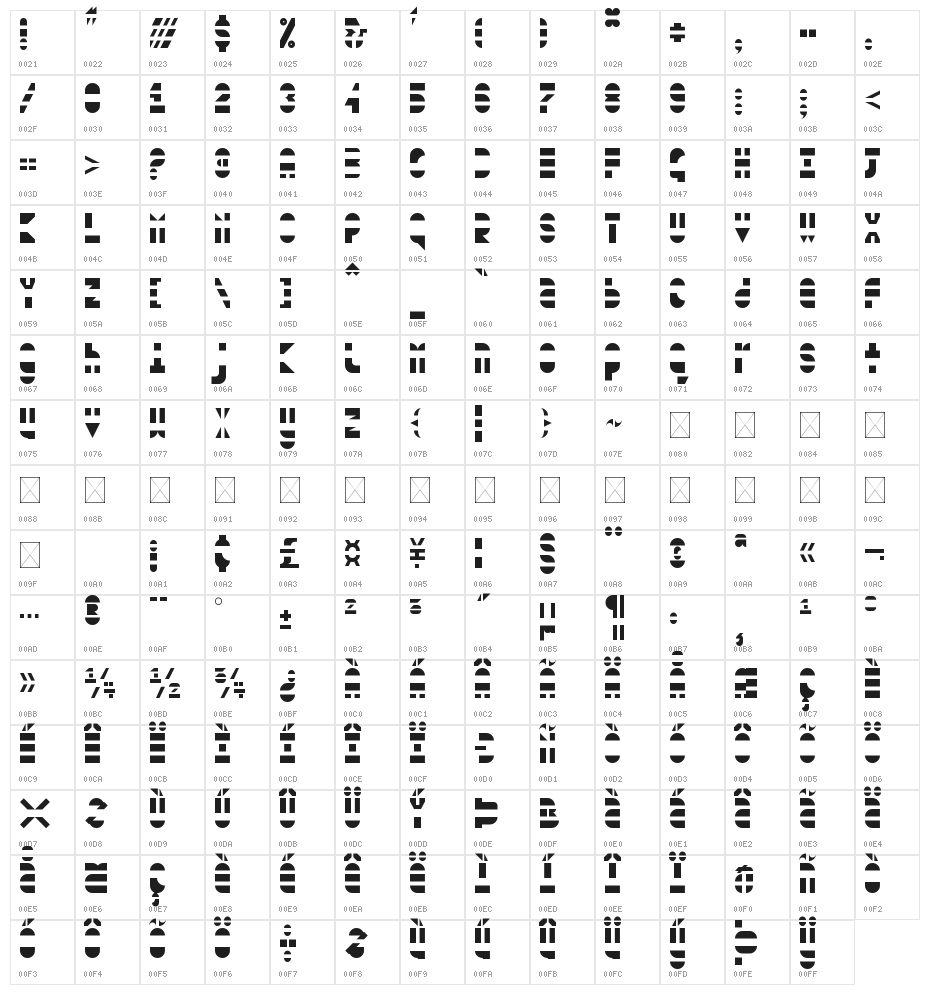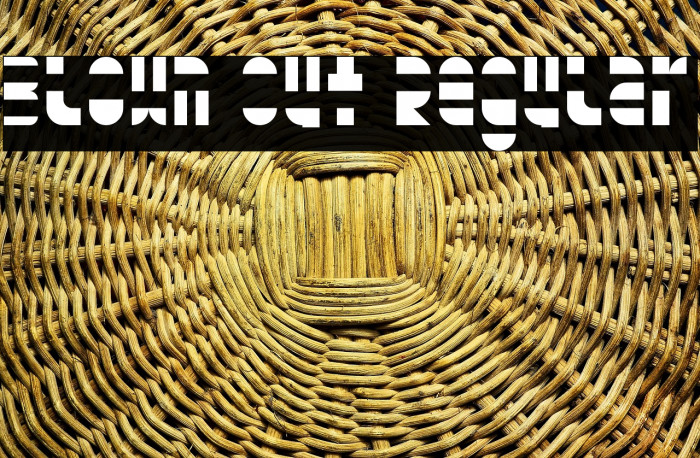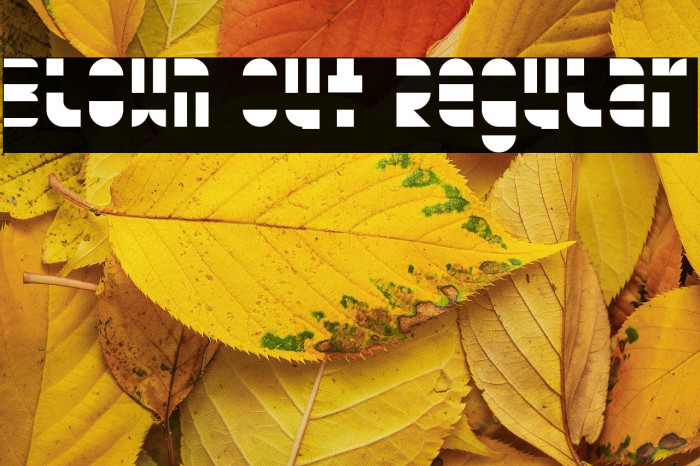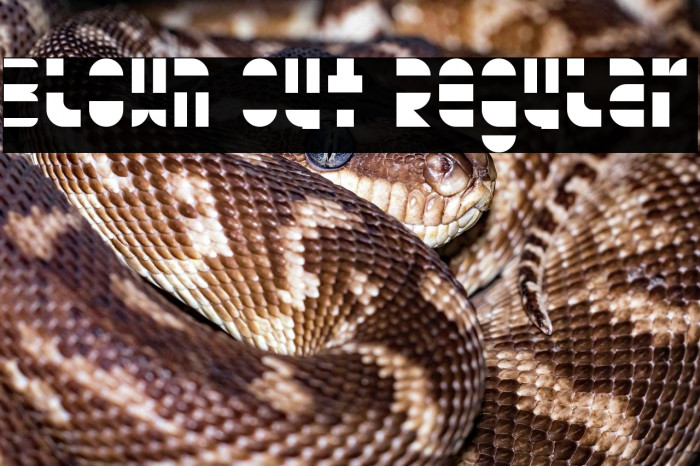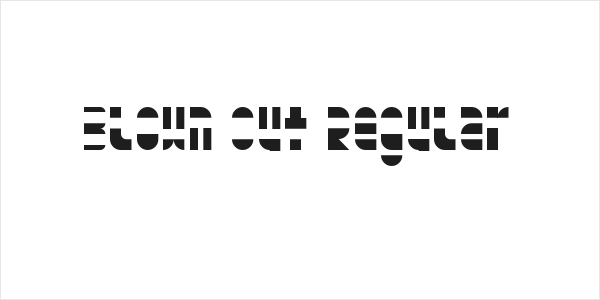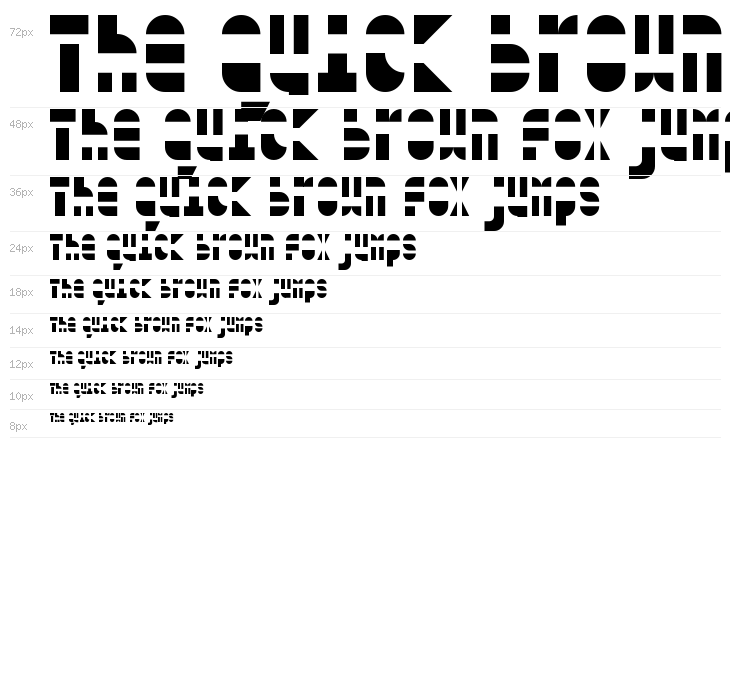
Blown Out Regular Font
Blown Out Regular Description
This font features a bold and geometric design, characterized by its use of solid, block-like shapes that create a striking visual impact. The letters are constructed with a combination of straight lines and curves, forming a unique, fragmented appearance. The uppercase and lowercase letters maintain a consistent style, with each character appearing as if it is composed of separate segments. The numbers and special characters follow the same design principles, ensuring a cohesive look across the entire set. This font's distinct style makes it ideal for projects that require a modern and edgy aesthetic.
Proposed ProjectsIdeal for branding, posters, album covers, and any project needing a modern, edgy look.